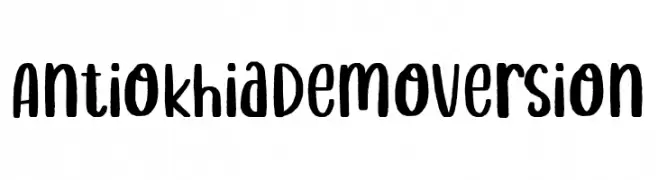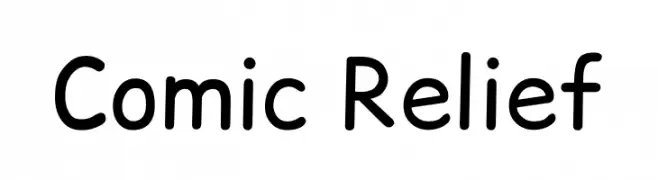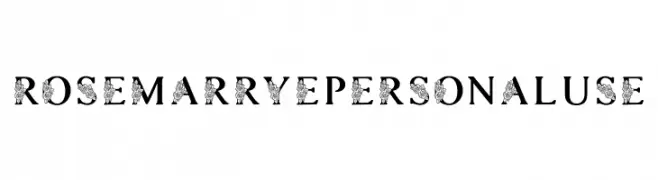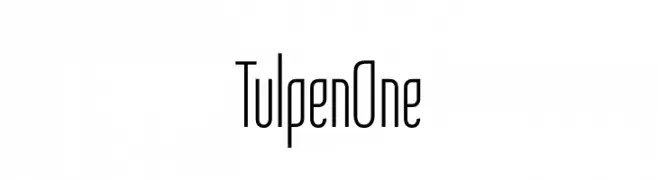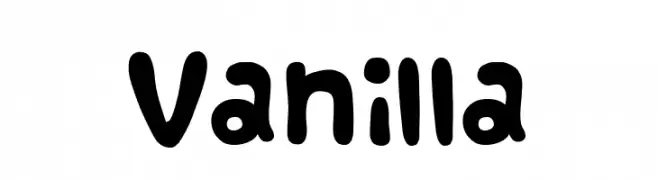
A bold, rounded font with smooth curves and uniform stroke width, offering a modern and approachable style.
A bold, playful handwritten font with thick strokes and a casual style.
A decorative font with stylized car illustrations for each character.
A modern, elongated font with narrow, elegant characters.
A bold, playful font with vintage charm and approachable characters.
A bold, rounded font with a playful and friendly style.
A playful, hand-drawn style font with a whimsical and casual appearance.
A decorative serif font with floral embellishments on select uppercase letters.
A dynamic and elegant script font with fluid, calligraphic strokes.